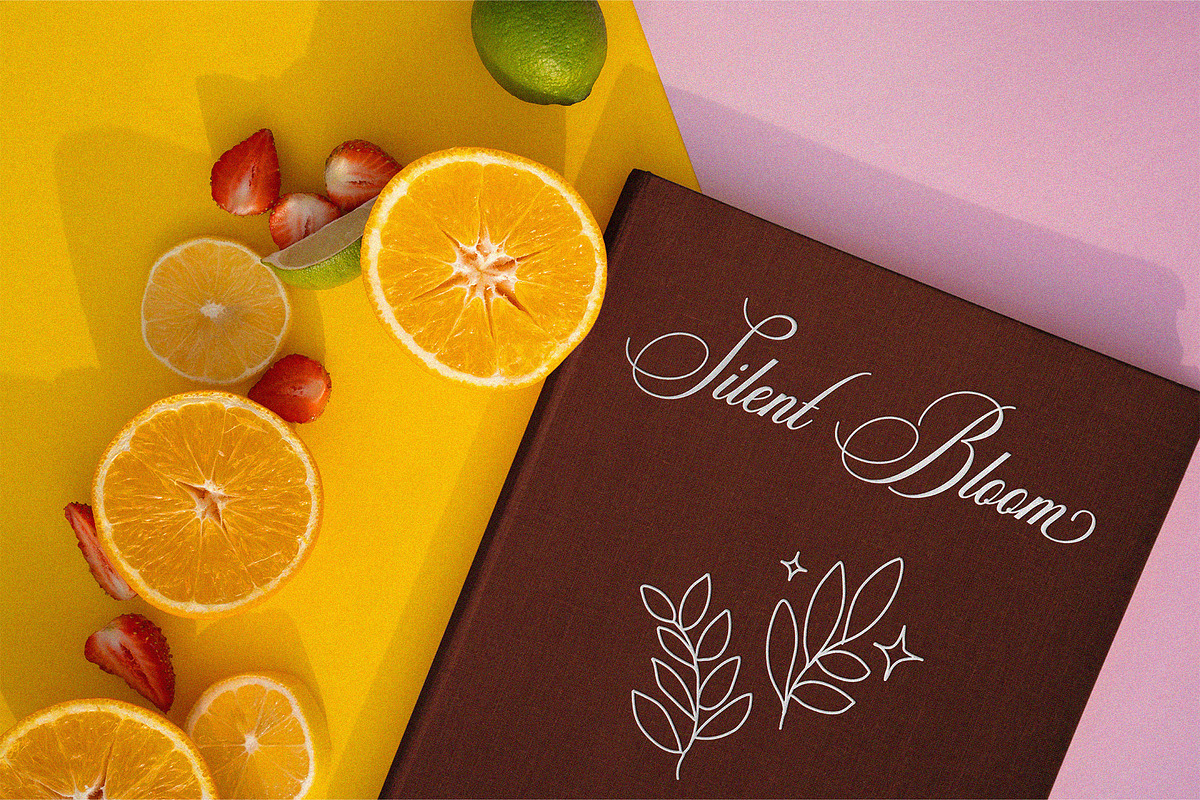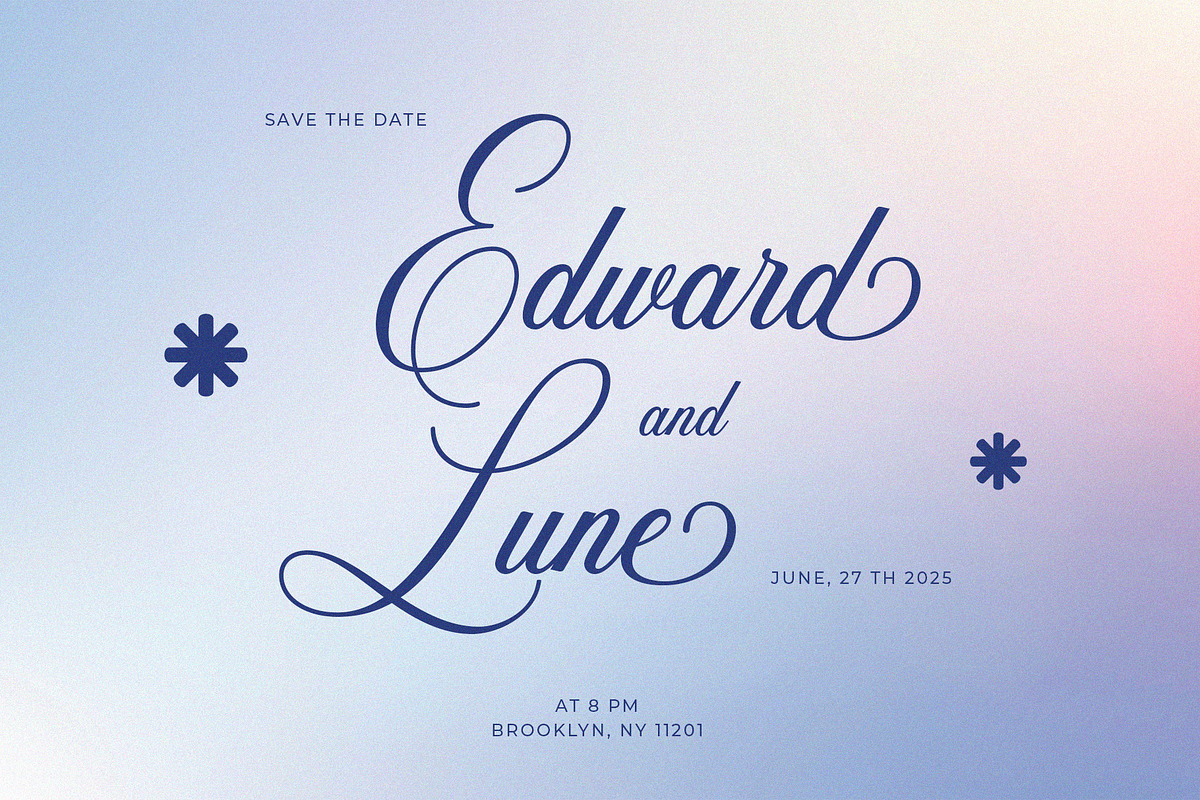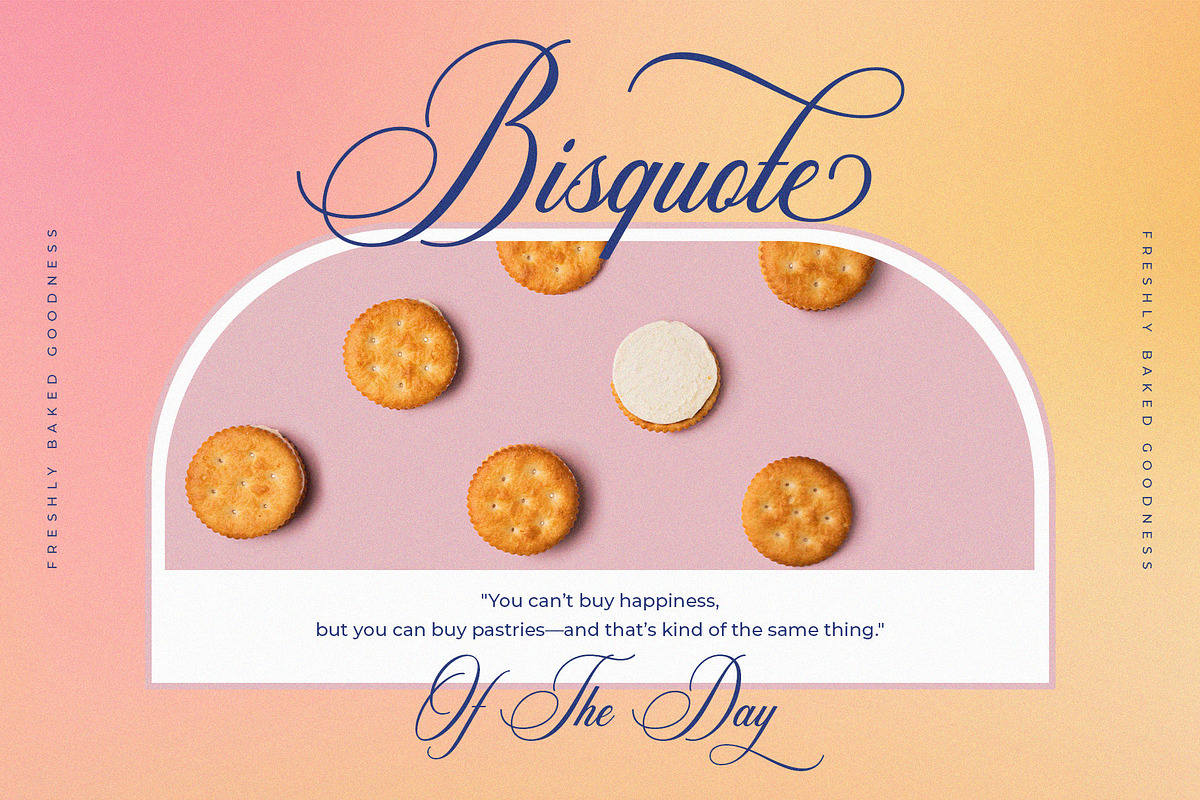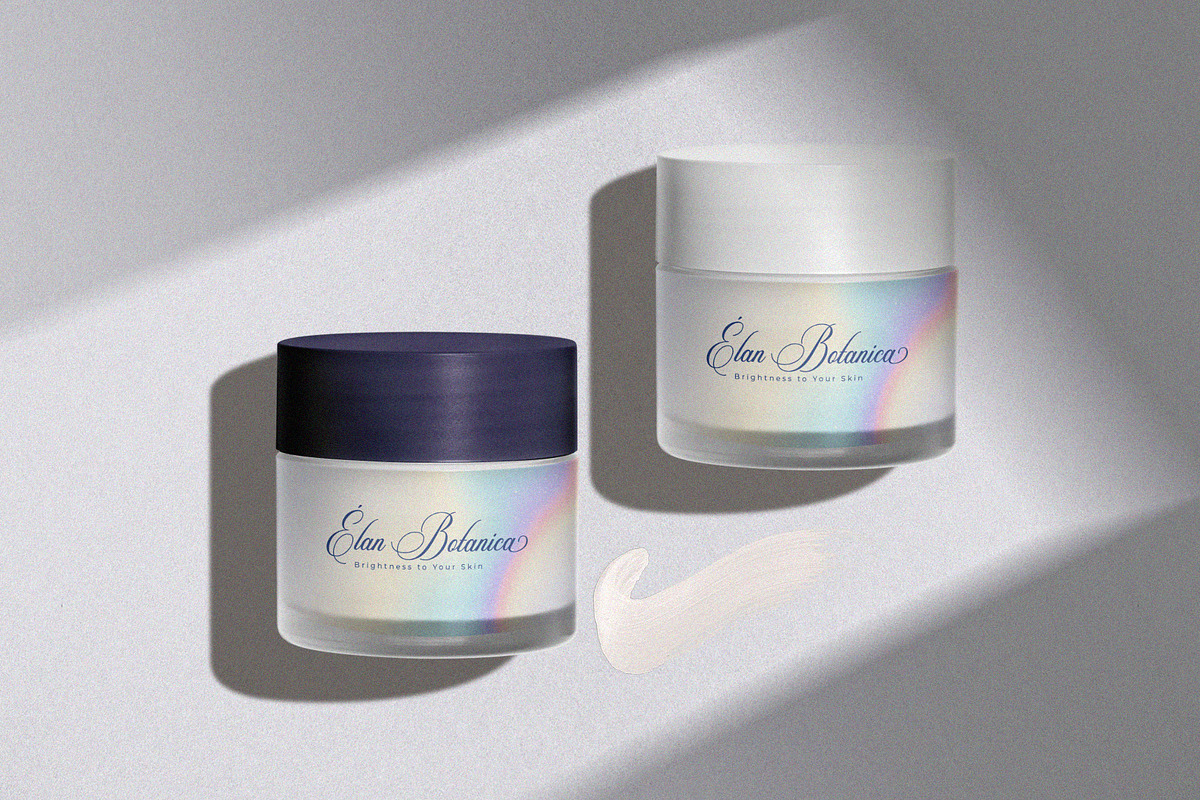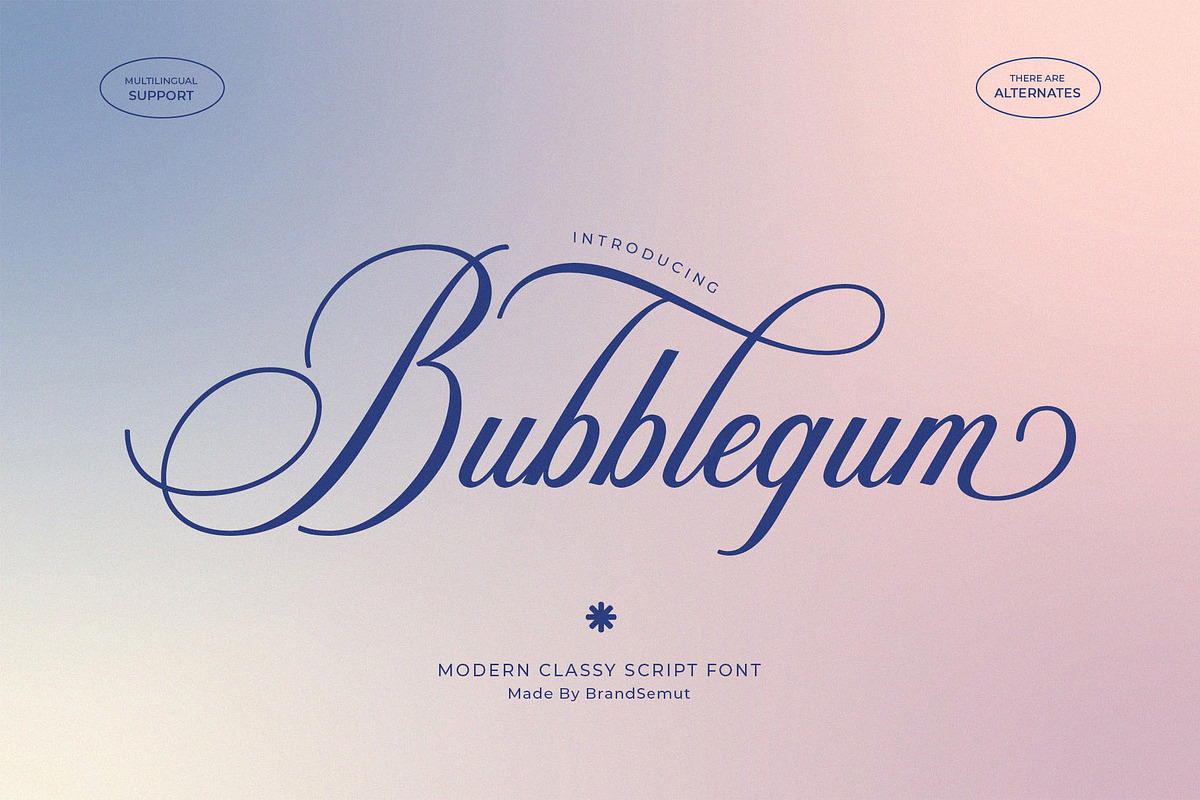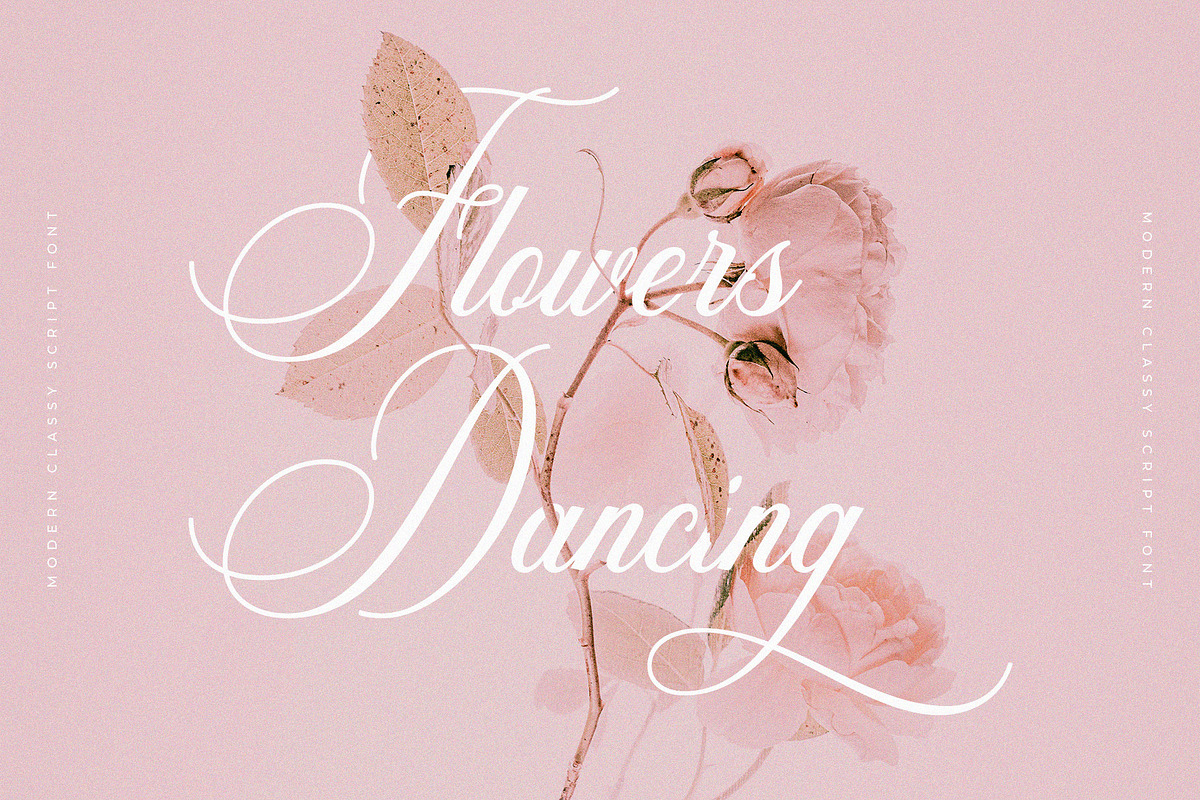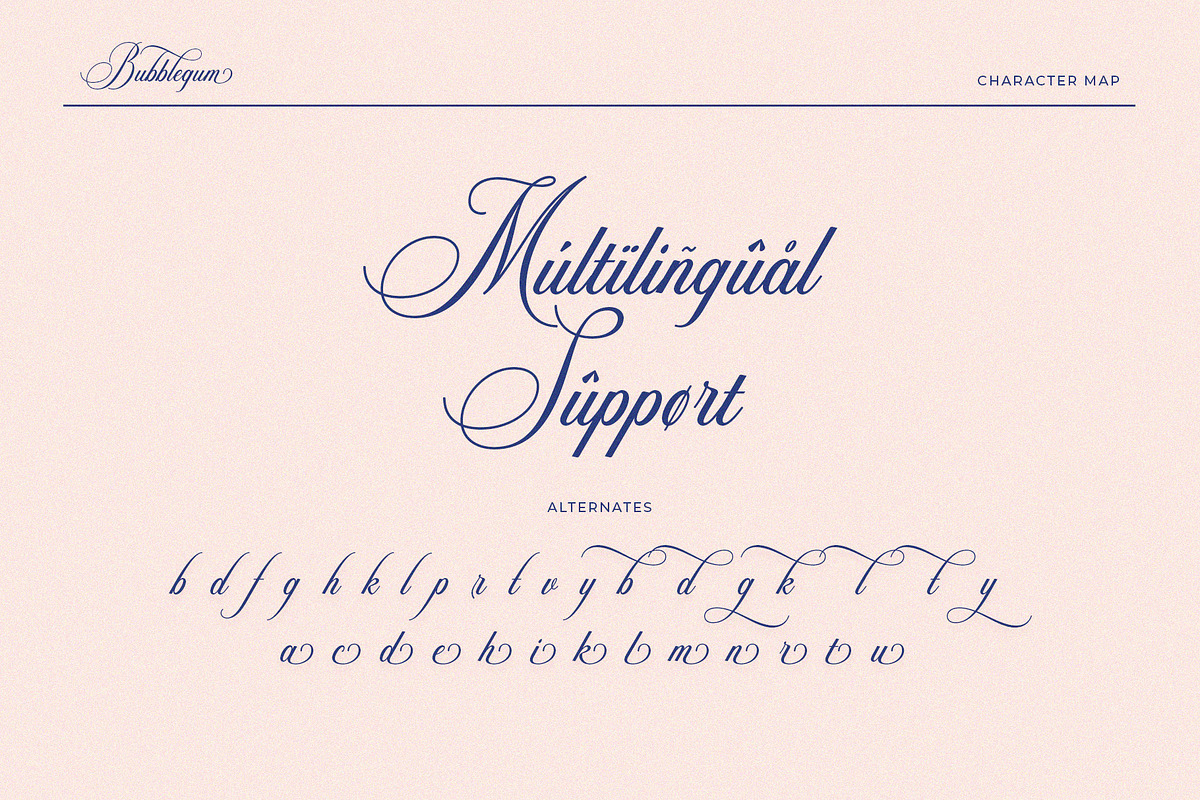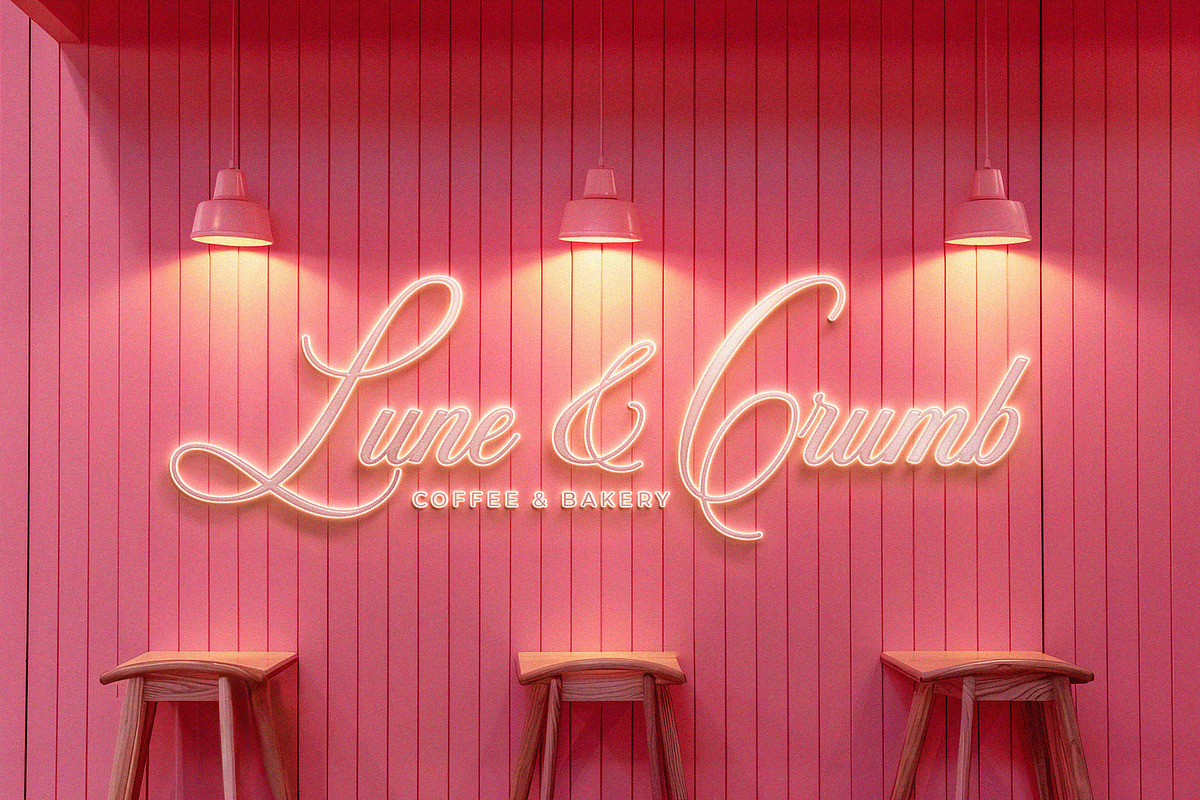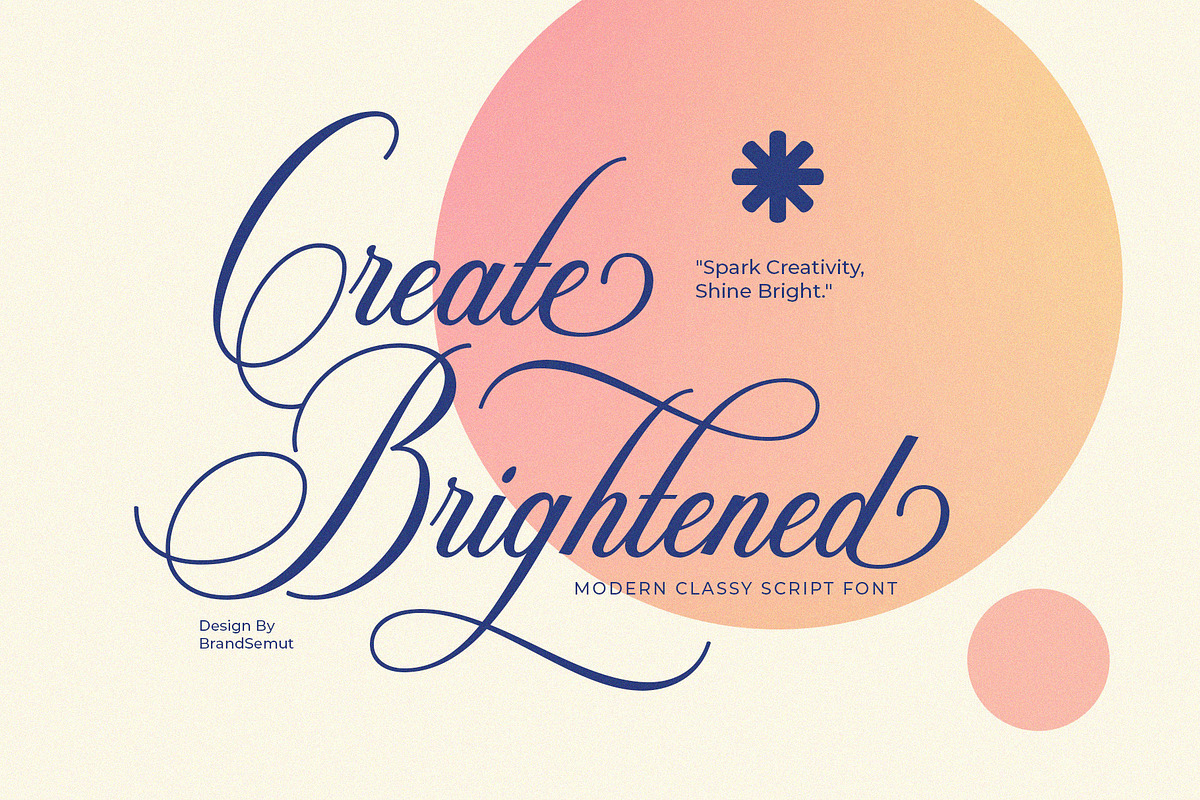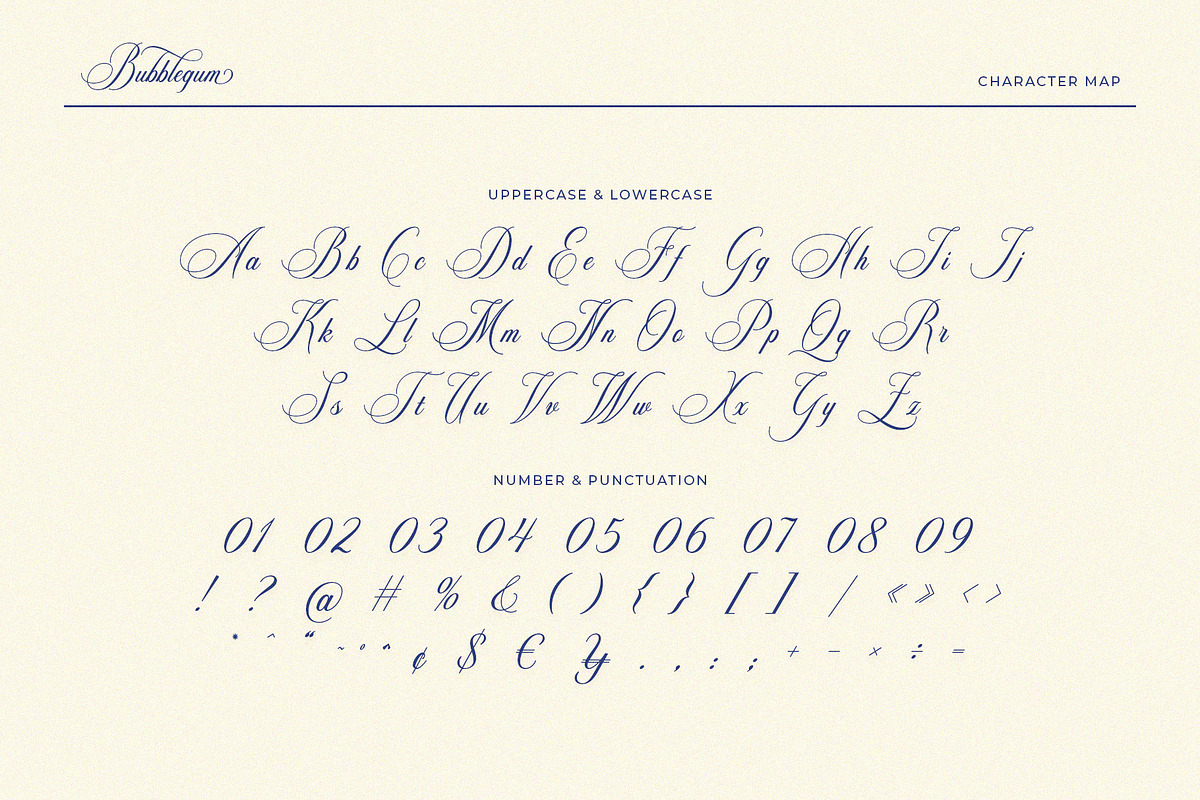
Bubblegum – Modern Classy Script
Bubblegum – Modern Classy Script Font
Bubblegum is a modern classy script font designed with elegance, sophistication, and timeless beauty in mind. Featuring flowing curves, stylish swashes, and refined calligraphy strokes, Bubblegum is perfect for adding a luxurious handwritten touch to any project.
This versatile font blends the artistry of classic calligraphy with a contemporary style, making it suitable for branding, editorial design, wedding stationery, packaging, and digital content. With its high readability and graceful letterforms, Bubblegum elevates every design with a premium and professional look.
- Complete uppercase and lowercase letters
- Numerals, punctuation, and multilingual support
- Beautiful ligatures & stylistic alternates for creative combinations
- Branding & Logo Design – Create sophisticated and luxurious brand identities.
- Wedding & Event Stationery – Ideal for invitations, save-the-date cards, and romantic event themes.
- Packaging Design – Elevate cosmetics, fashion, jewelry, and gourmet product packaging.
- Editorial & Print Design – Perfect for magazines, book covers, and professional layouts.
- Digital Content & Social Media – Bring elegance to Instagram posts, Pinterest graphics, and marketing materials.
- Elegant & Stylish – A classy script font that captures timeless sophistication.
- Versatile & Flexible – Works seamlessly across luxury, fashion, wedding, and creative projects.
- Professional Quality – Carefully crafted with smooth curves, perfect balance, and readability.
Bubblegum is more than just a font—it’s an artistic statement. Perfect for designers, entrepreneurs, and creatives who want to transform their projects with a beautiful, timeless handwritten style.